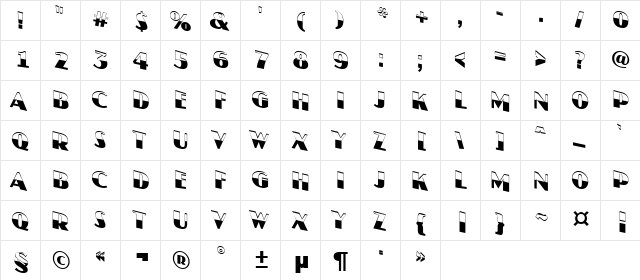
a_JasperTtlB&WDn Regular
Design Context for a_JasperTtlB&WDn Typeface
a_JasperTtlB&WDn is a composed and adaptable typeface that performs quietly and consistently across a wide range of design contexts.